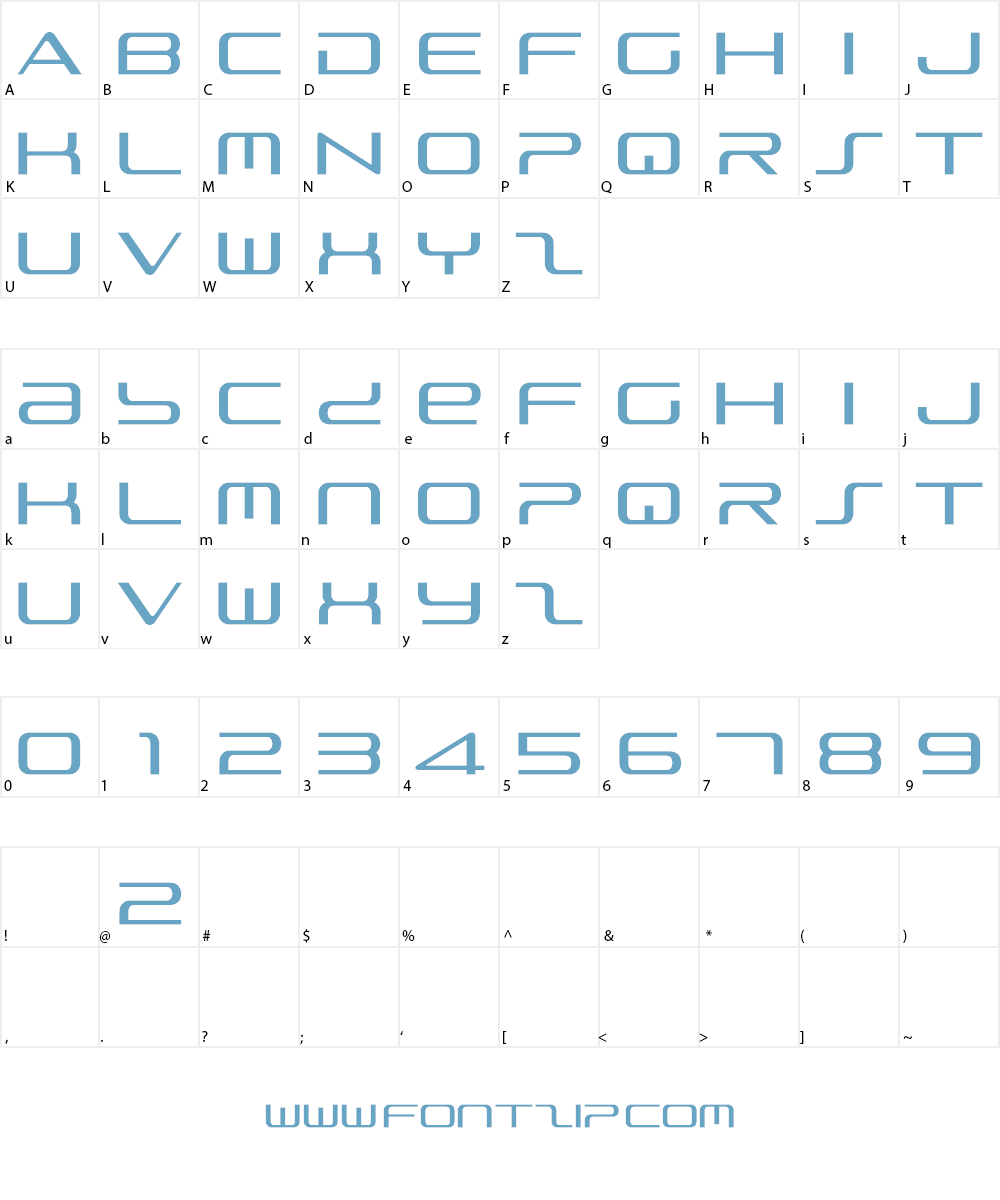
Like "Blue Players", this is a fontification of the PS3, 4, Vita, and PSN logos.
Same deal with this as with "Blue Players", taking reference with "TEST" PS3 consoles.